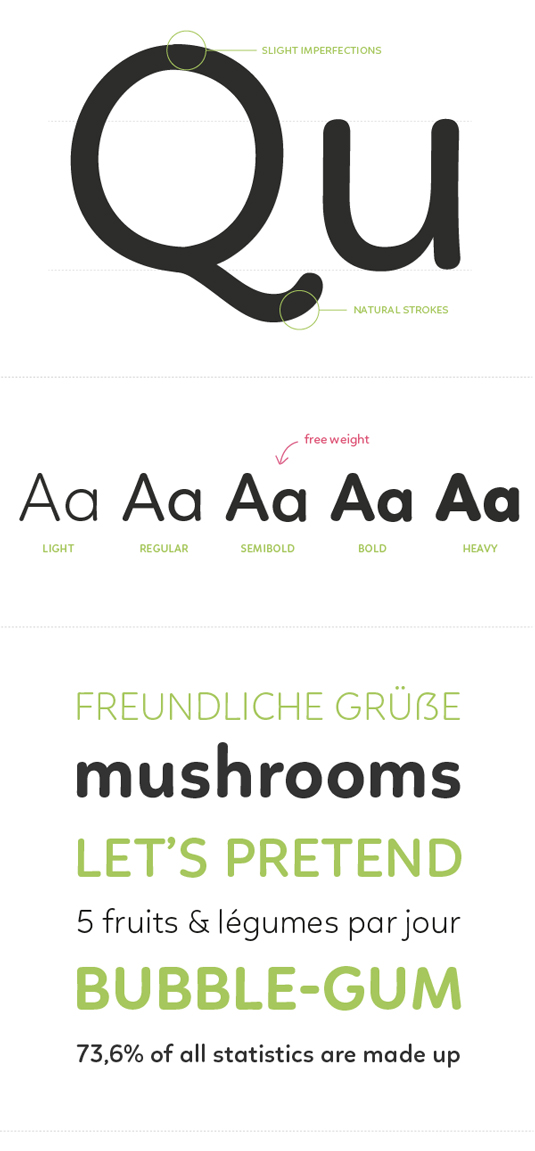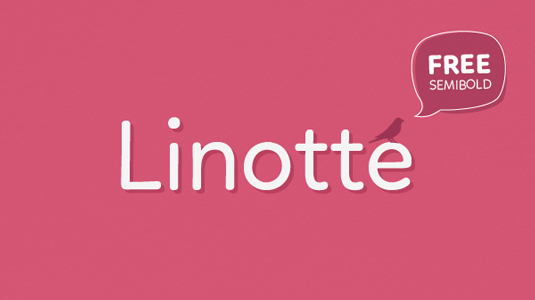
Font of the day: Linotte
Linotte by Joël Carrouché
Today's typeface of choice is rounded sans serif Linotte, designed by Joël Carrouché. "Slight irregularities give the typeface a warm and naive look, while the solid geometric construction allows good legibility in long texts and small sizes," Carrouché comments on Behance. "Linotte is ideal to set texts for food or kid related products, and anything that needs to convey a friendly feeling."